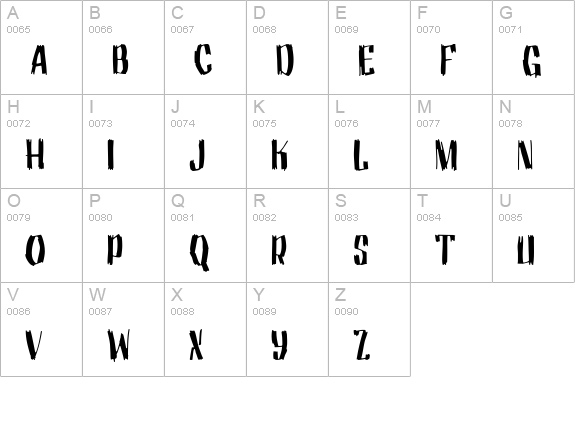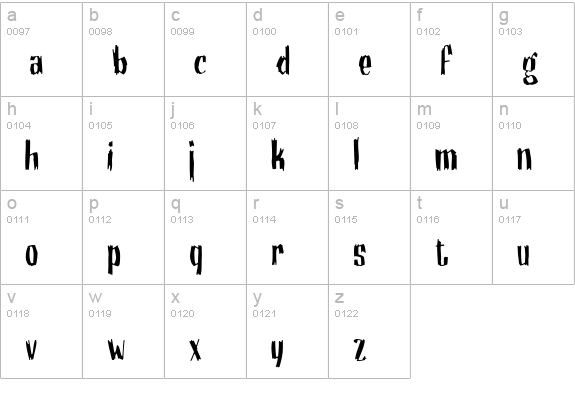
Motrhead Grotesk Font Details
Motörhead Grotesk is a bold and powerful font that embodies the spirit of rock and roll. With its sharp edges and strong presence, this typeface commands attention and delivers a punchy impact. Inspired by the legendary rock band Motörhead, this font exudes a sense of rebelliousness and raw energy. What sets Motörhead Grotesk apart is its versatility - whether used for headlines, posters, album covers, or branding, it always stands out and makes a statement. Its strong and distinctive characters make it perfect for conveying a sense of attitude and boldness in design projects. And the best part? Motörhead Grotesk is completely free to download at FontsMarket.com. So go ahead, unleash your inner rockstar with this dynamic and edgy font that will give your designs a powerful and rebellious edge.